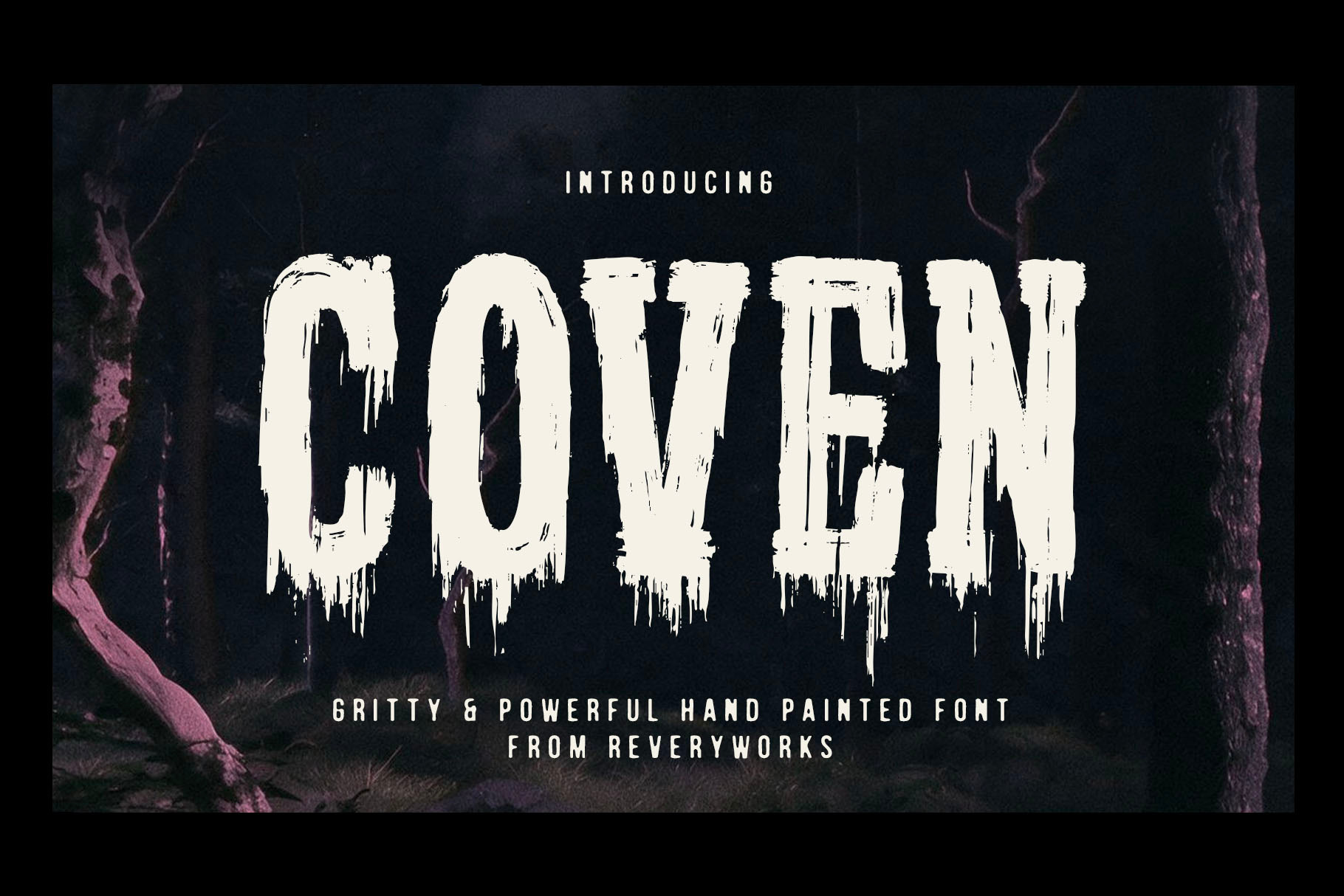
Coven Typeface
Introducing Coven Typeface! A hand drawn gritty and powerful typeface for all your horrific creations! Pulled right from the archive, Inspired by fantasy movies and books. It's here to make a statement with dripping monstrosity! Paired with Heirloom Orchard sans font.
Coven is an all caps font but alternate between upper and lowercase letters to try different variations of the same letter.